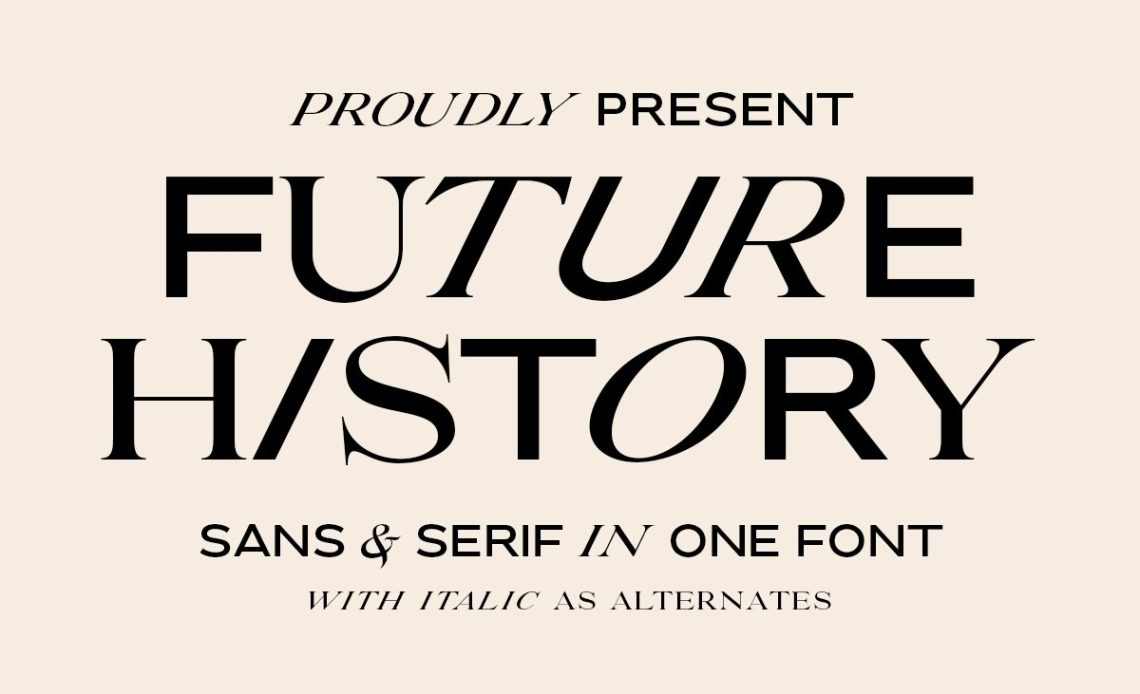
Looking for the best font for a rustic wedding? Look no further than Future History - 2 in 1 Font, created by Sarid Ezra! This modern and stylish font combines both sans and serif styles in one, making it a unique addition to any collection.
The lowercase letters are in a beautiful serif style, while the uppercase letters feature a sleek sans-serif design. And the best part? You can use both styles in the same word, making your text stand out in a truly eye-catching way!
But that's not all. Future History also comes with an italic version as the alternates, allowing you to combine all styles seamlessly without worrying about kerning. Plus, it's well-kerned and available in both OTF and TTF formats.
This versatile font is perfect for use in magazines, posters, and headlines. It's also multi-lingual, so you can use it for any project, no matter the language.